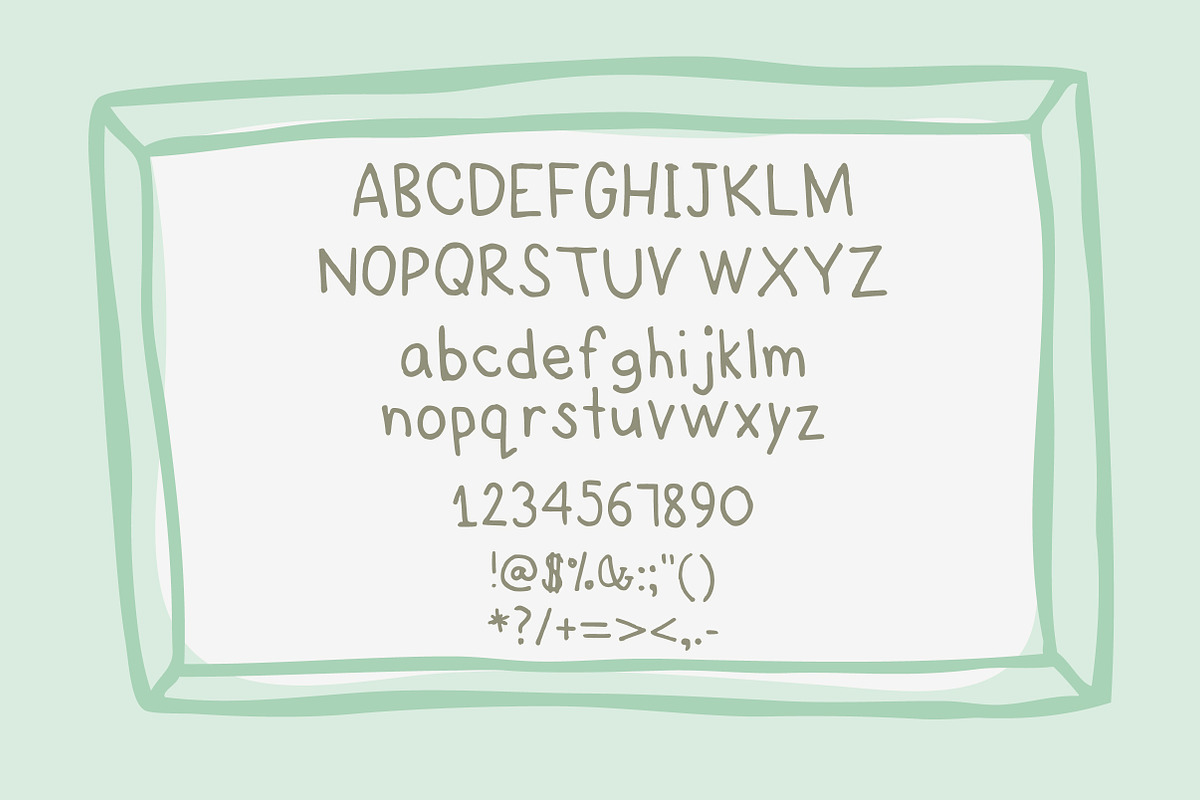
Story- a HandDrawn Font just for you
Story- a HandDrawn Font just for you by Shelly Laslo Illustration is a font selected for branding, posters, packaging, typography.
Why Story- a HandDrawn Font just for you is worth a look
Story- a HandDrawn Font just for you by Shelly Laslo Illustration fits naturally into Branding, posters, packaging, typography.